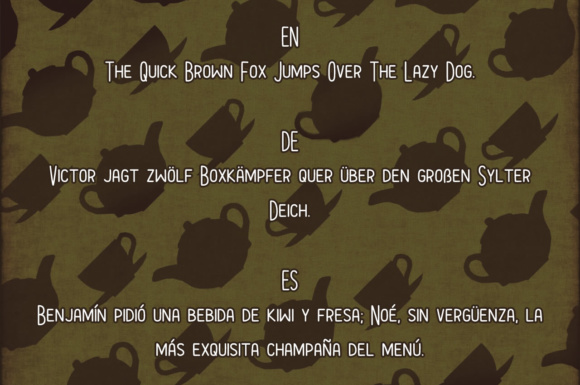
Introduction to Im Spiegelland Font
Have you ever found yourself stuck on a creative project, desperately searching for that perfect finishing touch? Maybe it’s a handwritten logo, a cute title, or a whimsical quote – whatever it is, you know it’s the key to bringing your design to life. And that’s exactly where Im Spiegelland Font comes in – a delightful, handcrafted font that adds a touch of personality to any project.
Designed with love and care, Im Spiegelland Font is the perfect design resource for creatives who want to add a unique, handwritten finish to their work. With its mix of tall and short capitals, this font creates a visually appealing look that’s sure to capture attention. Plus, with its transparent background, you can easily layer it over other design elements to create a high-quality, eye-catching effect.
Key Features of Im Spiegelland Font
- Unique, hand-drawn design ideal for creative projects requiring a distinctive touch.
- Transparent background, allowing for seamless integration into various design elements.
- Designed to be versatile, making it suitable for a wide range of creative projects, from branding to editorial design.
Honest Review: Im Spiegelland Font
I recently came across the Im Spiegelland Font and I must say, it’s been a game-changer for my creative projects. The font’s unique and quirky design makes it perfect for adding a touch of personality to my designs.
Here are some of the things that work well for me:
- Unique and quirky design that adds a touch of personality to my designs
- Transparent background makes it easy to use and versatile
- High quality, professional design
However, I do have to mention a few limitations:
- Some of the characters may not be suitable for all types of designs
- The font may not be as customizable as some other design resources
Overall, I’m really impressed with the Im Spiegelland Font. It’s a high-quality design resource that’s perfect for adding a touch of personality to my creative projects. I’d definitely recommend it to fellow designers looking for a unique and quirky font.
Tips for Getting the Most Out of Im Spiegelland Font
Im Spiegelland Font is a versatile font that can be used for various creative projects. To get the most out of it, experiment with different font sizes, colors, and styles. You can also pair it with other fonts to create unique combinations.
Im Spiegelland Font is commonly used for creating invitations, wedding designs, and other creative projects that require a touch of elegance. Its transparent background feature makes it ideal for designs that require a subtle background effect.